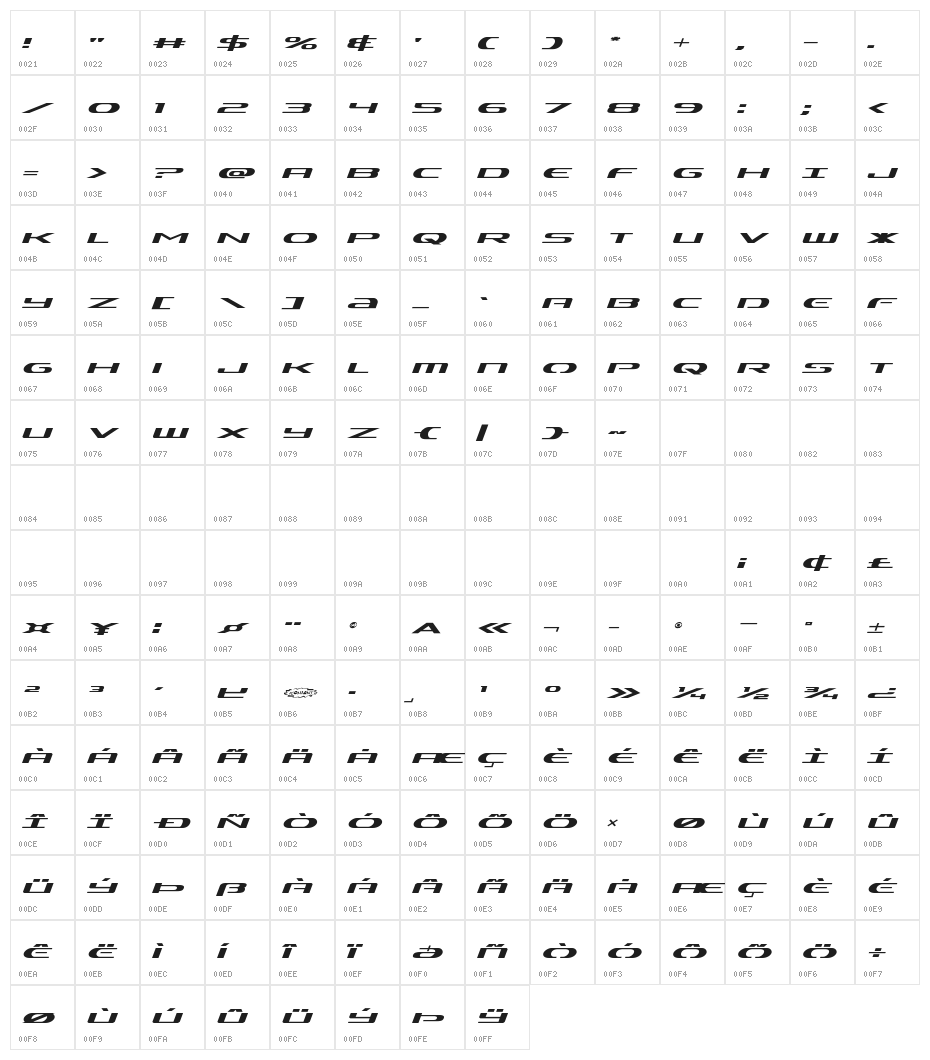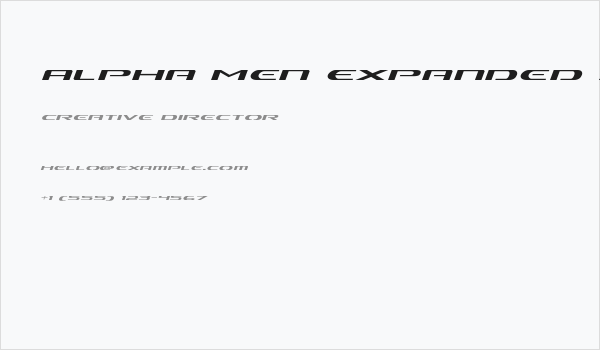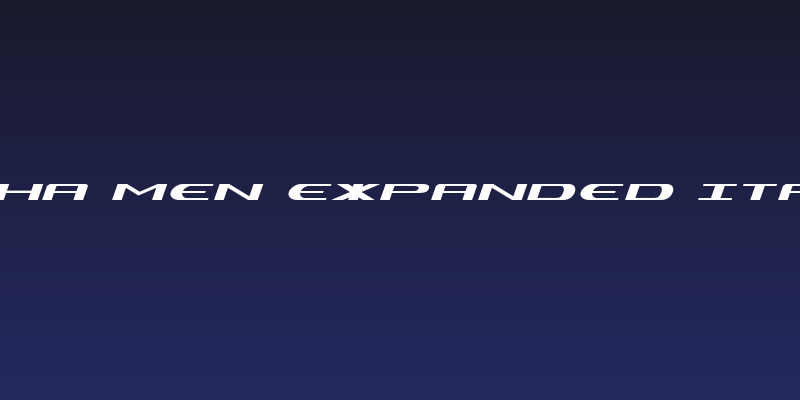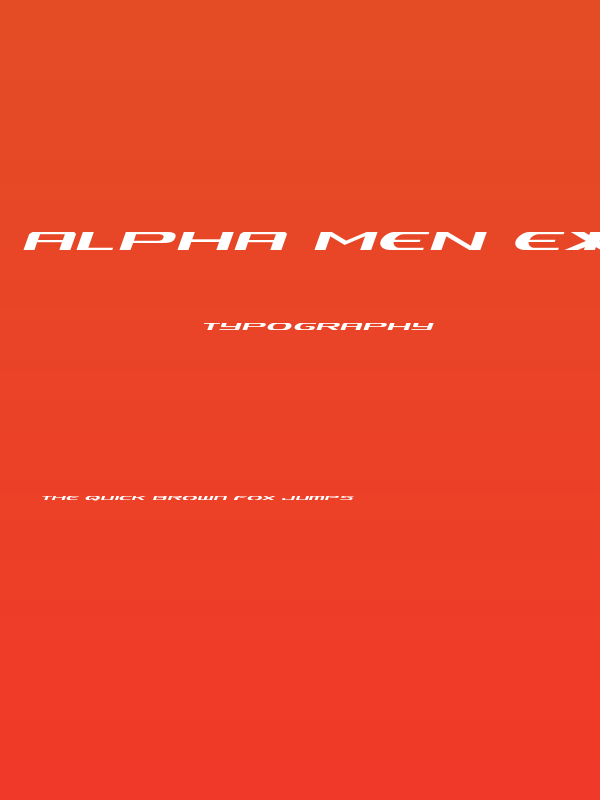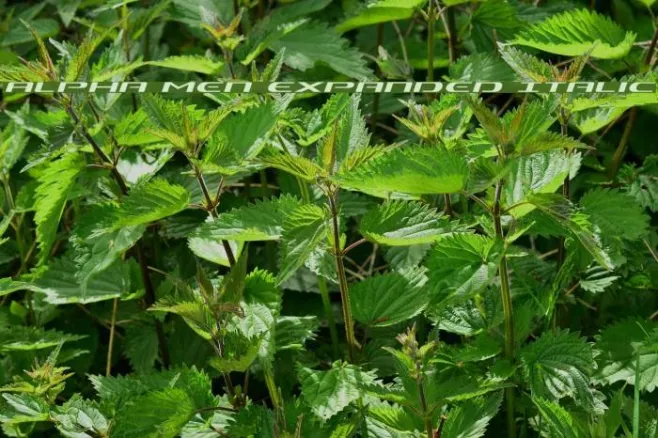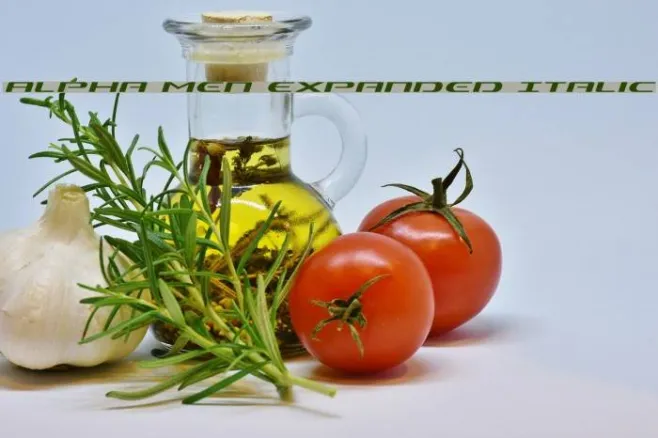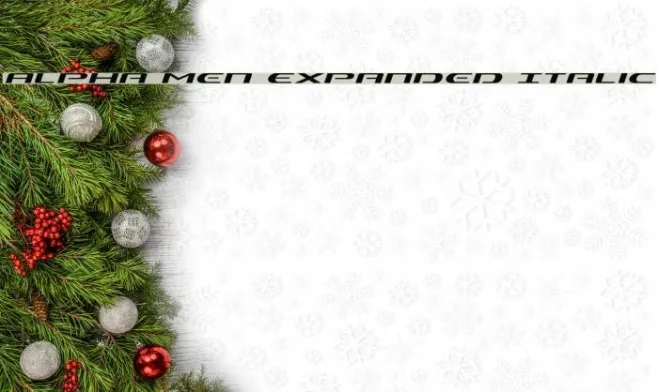
Alpha Men Expanded Italic Font
Alpha Men Expanded Italic Description
This font features a bold and dynamic design with an italic slant, giving it a sense of motion and energy. The characters are expanded, providing a wide stance that enhances readability while maintaining a sleek, modern appearance. The sharp angles and clean lines contribute to its futuristic style, making it suitable for projects that require a strong visual impact. The uniformity in stroke width ensures consistency across all characters, while the expanded width allows for a commanding presence on any medium.
| Proposed Projects | Ideal for sports branding, futuristic designs, technology-related projects, and dynamic advertising campaigns. |